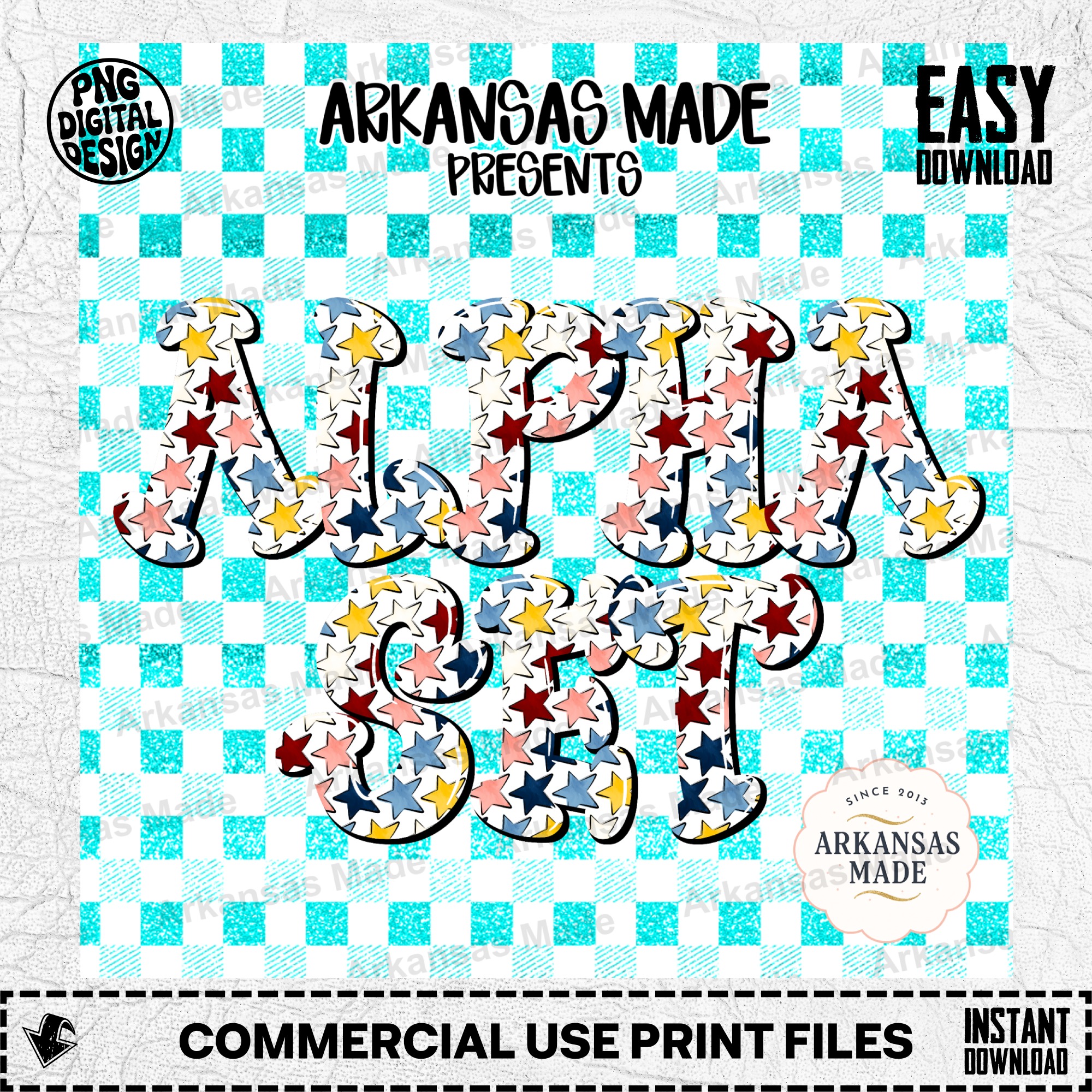
Get our vibrant Patriotic Stars Alpha Set PNG Digital Download, featuring watercolor-effect letters perfect for your Americana-themed sublimation designs and crafts! This cheerful alphabet clipart brings a festive touch to any project, from custom apparel and mugs to unique party decorations. Celebrate with distressed red, blue, and yellow stars, creating designs that resonate with a patriotic spirit. Ideal for crafters, small business owners, and DIY enthusiasts looking to create standout pieces for holidays, celebrations, or everyday American pride.